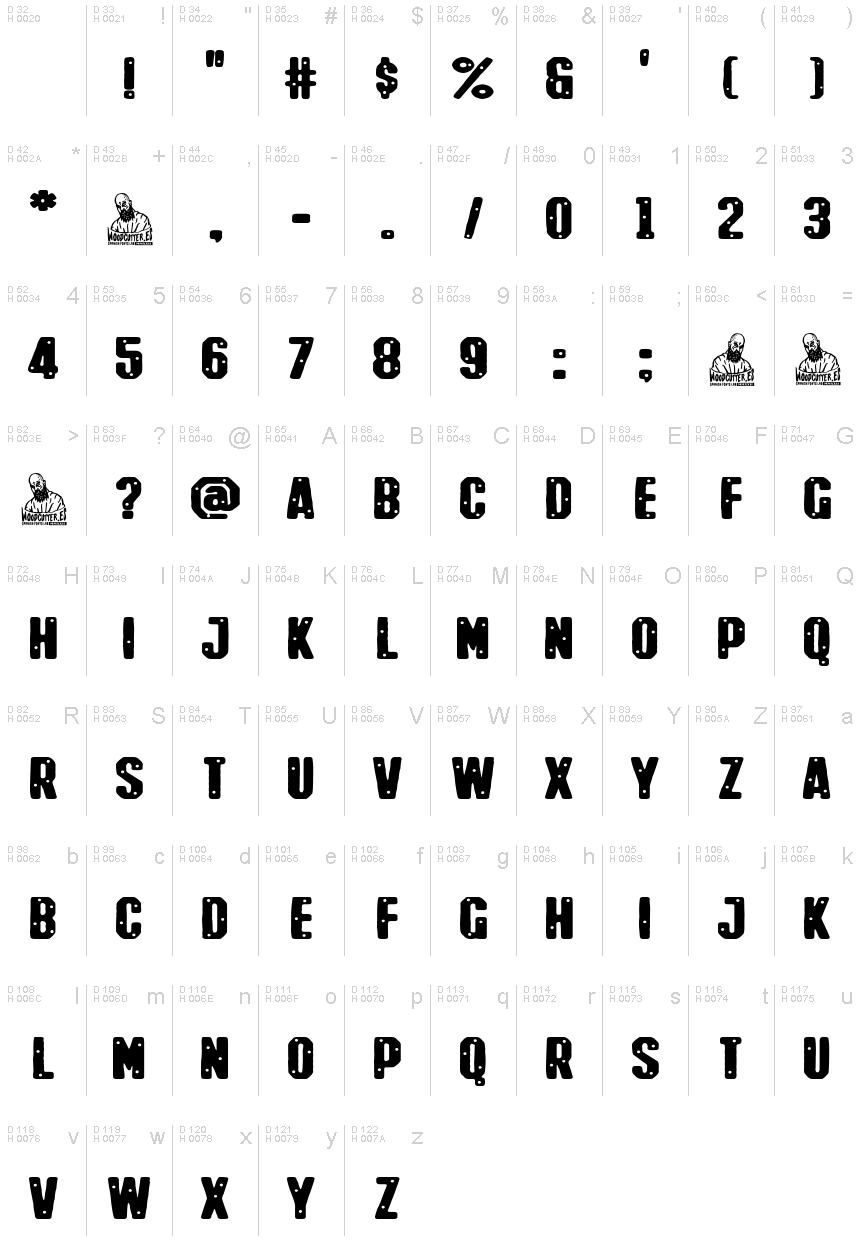
Laboratorios Garcilaso
Laboratorios Garcilaso font by Woodcutter is a decorative bold display family that attracts with uncommon letterforms and detailed strokes. This condensed typeface uses boxy elements, fewer curves, and geometric rounded shapes for futuristic looks and styles. Influences are clearly techno which sets a novel aesthetic, perfect for artistic projects such as horror stories.